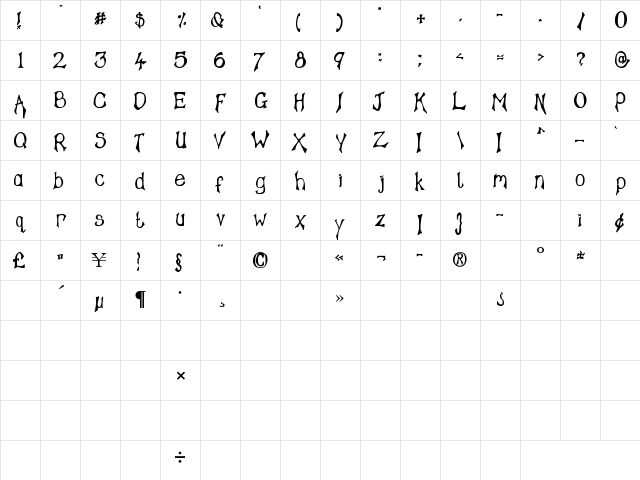
Tampy's Font Regular
Design Context for Tampy's Font
Tampy's Font is a composed and adaptable typeface that performs quietly and consistently across a wide range of design contexts.